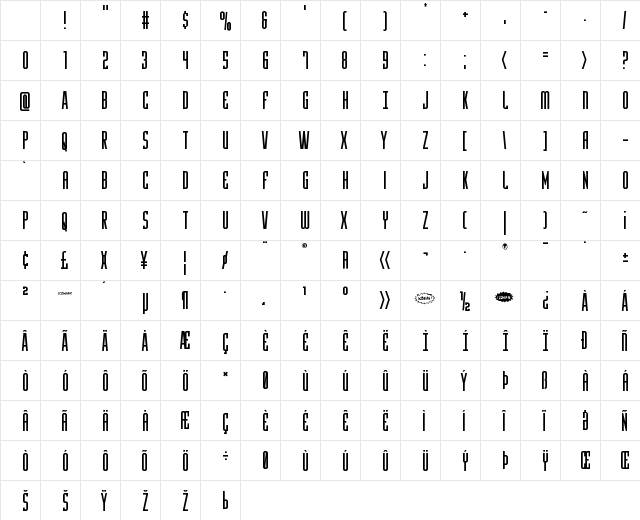
Complete Y-Files Title Regular glyph index. Displaying only characters natively supported by Y-Files Title Regular font.
Y-Files Title is a composed and adaptable typeface that performs quietly and consistently across a wide range of design contexts.